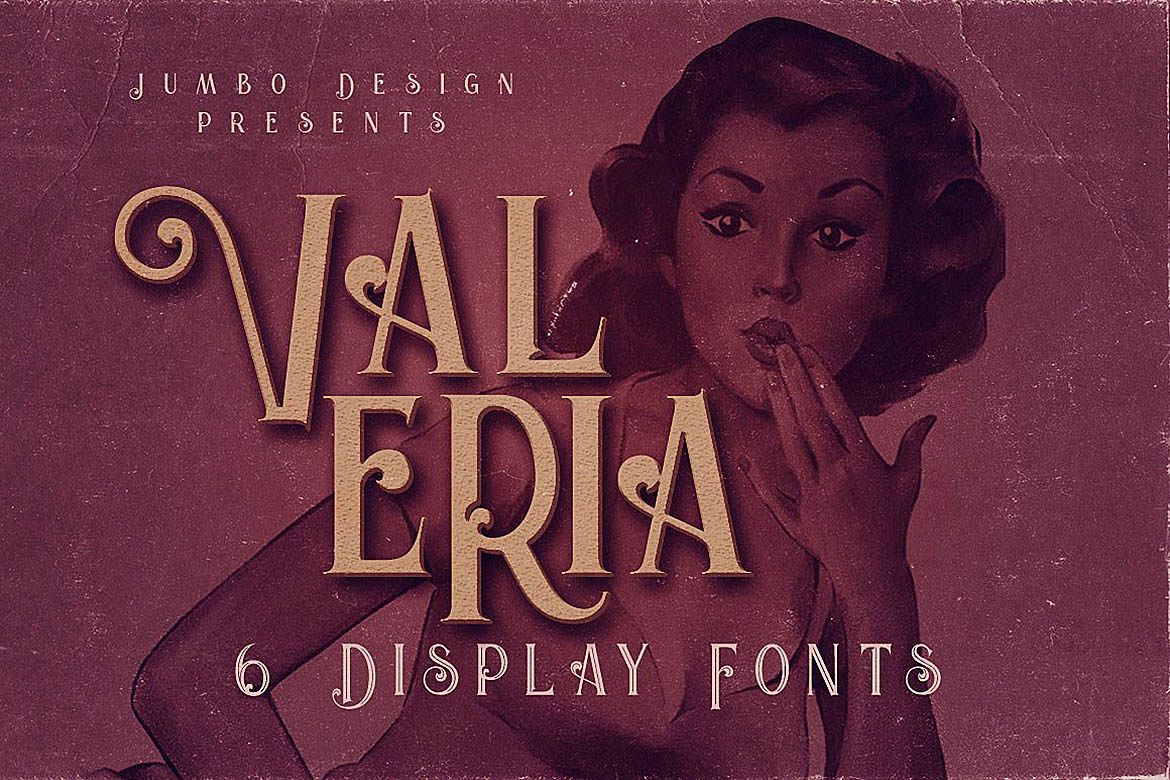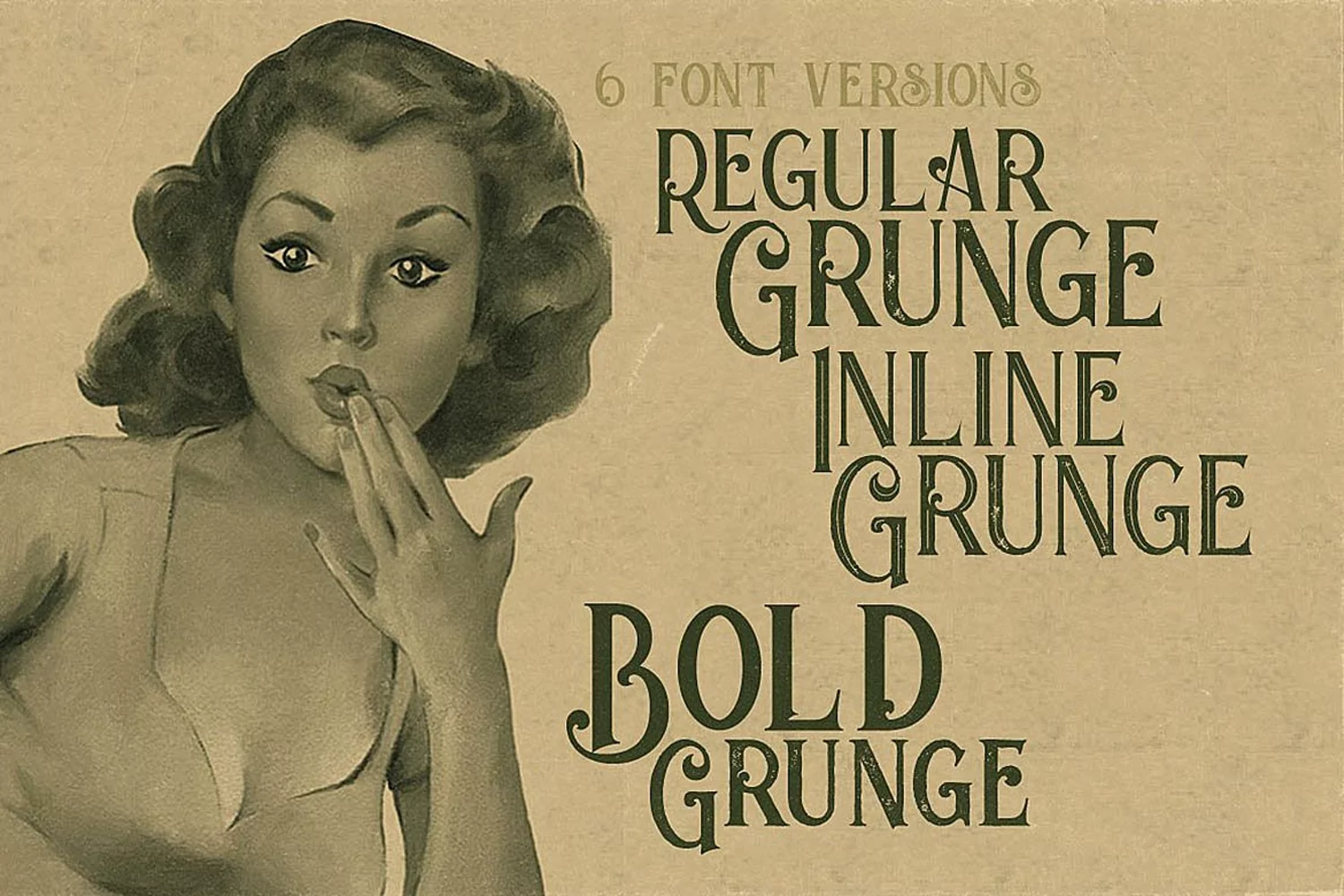
Valeria - Display Font
Unique vintage ornamental style custom serif font with 6 styles: regular and grunge, inline and inline grunge & bold & bold grunge